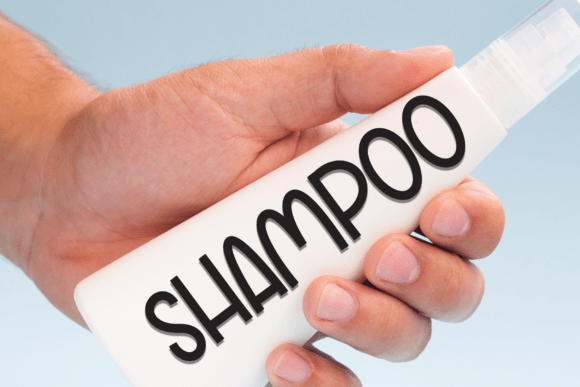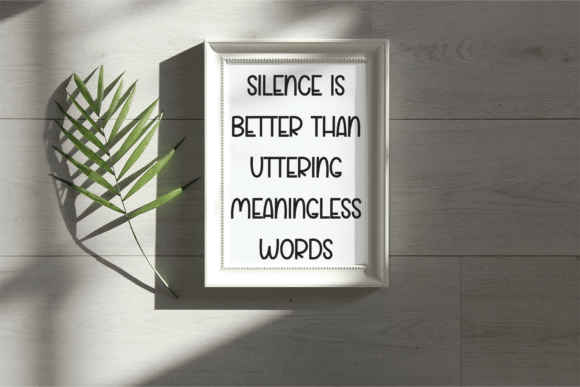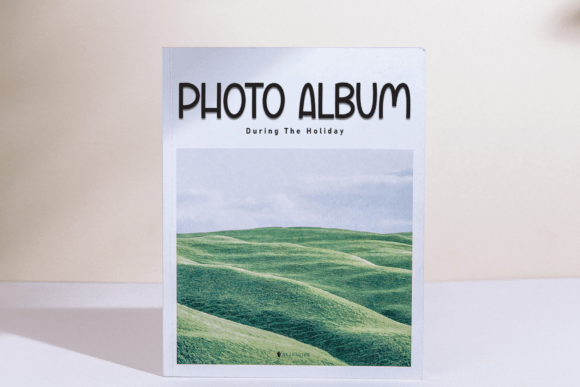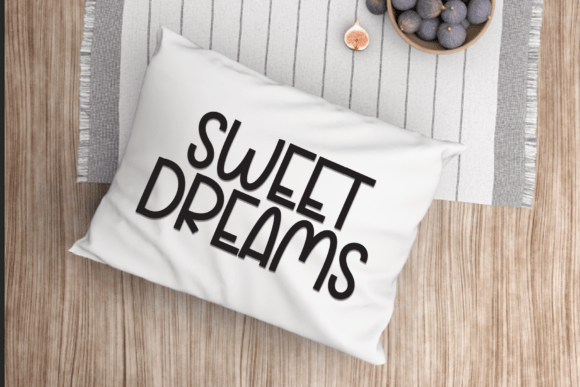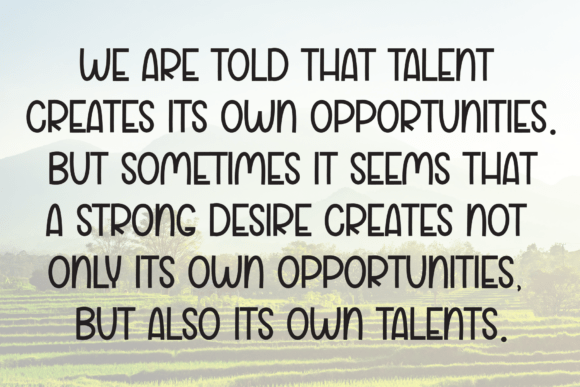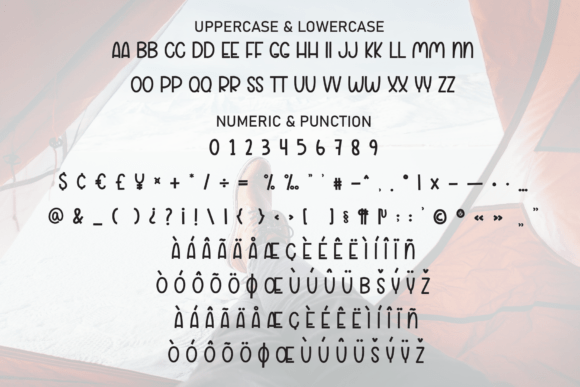
Introduction to Simple Camping Font
Do you remember that moment when you stumbled upon a beautiful, hand-drawn invitation at a friend’s wedding? The delicate strokes, the whimsical flair, and the personal touch it added to the entire event? For designers, it’s moments like these that remind us of the power of typography in elevating our creative projects. A well-chosen font can make all the difference in conveying the tone and personality of an event or brand.
That’s why we’re excited to introduce you to ‘Sweet Scribbles,’ a charming handwritten display font that’s perfect for designers looking to add a playful touch to their projects. This lovable display font is ideal for any creative endeavor, from wedding invitations to social media graphics, and even signage for events like Simple Camping Font.
With ‘Sweet Scribbles,’ you’ll have access to a high-quality design resource that’s easy to customize and versatile in its applications. Whether you’re working on a free download or a paid project, this font is sure to bring a touch of warmth and personality to your designs, making it a valuable addition to any designer’s toolkit.
Key Features of Simple Camping Font
- High-quality design resource for creative projects, perfect for outdoor and nature-themed designs.
- Comes with a transparent background, allowing for seamless integration into any design.
- Size: 256 glyphs, ensuring a comprehensive set of characters for any creative project.
- Unique characteristics include a rustic, hand-drawn feel and a limited color palette, adding to its charm and versatility.
Honest Review: Simple Camping Font
As a designer, I’m always on the lookout for high-quality design resources that can elevate my creative projects. Recently, I stumbled upon the Simple Camping Font, and I’m excited to share my thoughts on it.
- ✨ The font is incredibly versatile and can be used for a variety of projects, from outdoor-themed websites to camping-inspired graphics.
- ✨ The design is modern and clean, with a transparent background that makes it easy to customize.
- ✨ The font is available in a range of weights and styles, making it easy to find the perfect fit for your project.
- ⚠️ The font may not be suitable for projects that require a more formal or traditional look.
- ⚠️ Some users may find the font a bit too simplistic for their taste.
Overall, I’m impressed with the Simple Camping Font. It’s a high-quality design resource that’s perfect for creative projects that require a modern and outdoorsy vibe. With its transparent background and range of weights and styles, it’s a versatile font that’s sure to please. I’d definitely recommend it to designers looking for a free and high-quality design resource.
Applying Simple Camping Font in PowerPoint/Word
Even for basic presentations or documents, the Simple Camping Font can add a touch of professionalism and style. Import the font into PowerPoint or Word and use it to create headings, titles, or body text. Use the font’s transparent background feature to create a seamless design that blends with the rest of your content.
Getting the Most Out of Simple Camping Font
To get the most out of the Simple Camping Font, experiment with different font sizes, colors, and styles. Combine the font with other design elements, such as images or shapes, to create a visually appealing design. Use the font in creative ways, such as creating a bold title or highlighting important information.
Common Use Cases for Simple Camping Font
The Simple Camping Font is perfect for a variety of creative projects, including wedding invitations, birthday party decorations, and outdoor-themed designs. Use the font to create eye-catching signs, banners, or posters that add a touch of whimsy and personality to your event or design.